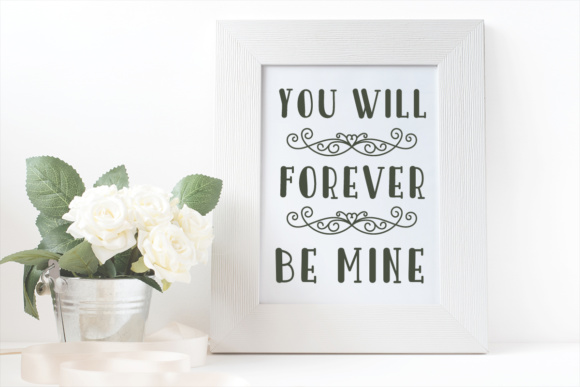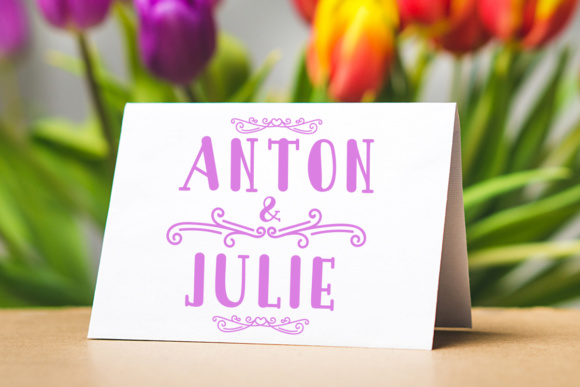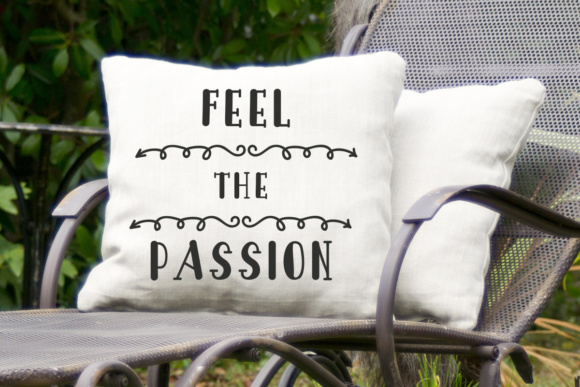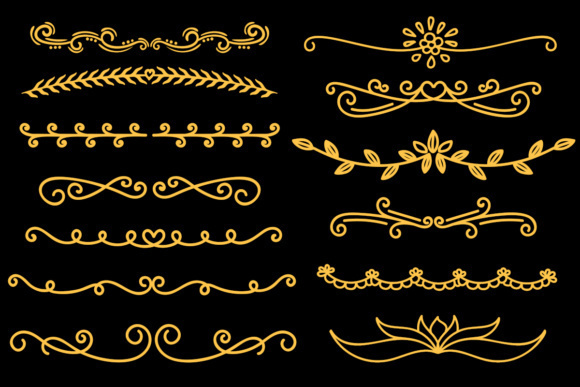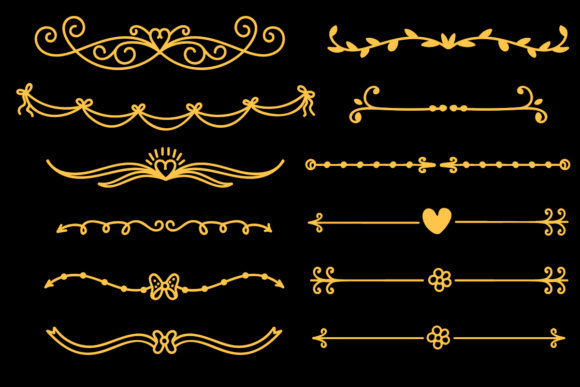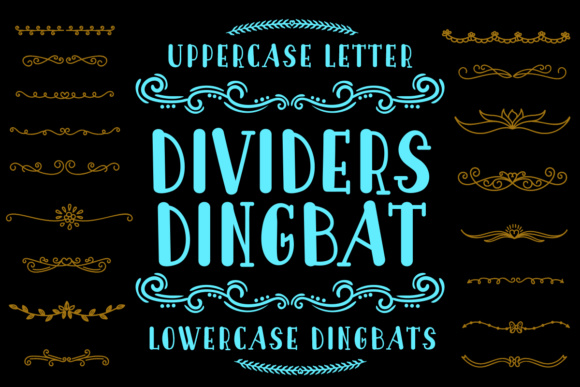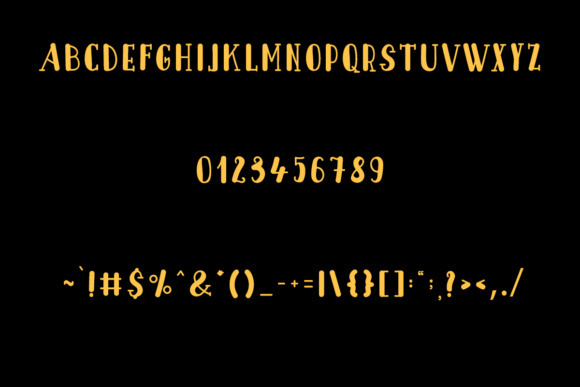
Dividers Dingbat Font
About Dividers Dingbat Font
The Dividers Dingbat font is a versatile font that offers a collection of 26 stylish uppercase letters and 26 lowercase dingbats. With its playful and decorative elements, this font is an excellent choice for adding embellishments and decorative dividers to your design projects.
The uppercase letters in the Dividers Dingbat font feature stylish and eye-catching designs that can be used as decorative initials or as standalone elements in your typography. These letters can add a unique and artistic touch to headings, titles, and other display text, allowing you to create visually appealing designs that stand out.
The lowercase dingbats in the Dividers Dingbat font are specifically designed to serve as playful embellishments and decorative dividers. These dingbats come in a variety of shapes and styles, such as swirls, ornaments, arrows, floral motifs, and more. They can be used to separate sections, frame text, or add a touch of whimsy to your overall design composition.
The versatility of the Dividers Dingbat font allows you to use it in a wide range of design projects. Whether you’re creating invitations, greeting cards, posters, packaging, or any other creative work, this font provides you with an extensive set of decorative elements to enhance your designs.
In summary, the Dividers Dingbat font offers a stylish collection of uppercase letters and lowercase dingbats that can be used to add playful embellishments to your design projects. With its decorative elements and versatile applications, this font allows you to enhance your typography and create visually appealing designs that captivate your audience. Let the Dividers Dingbat font inspire your creativity and bring a touch of whimsy to your design work.